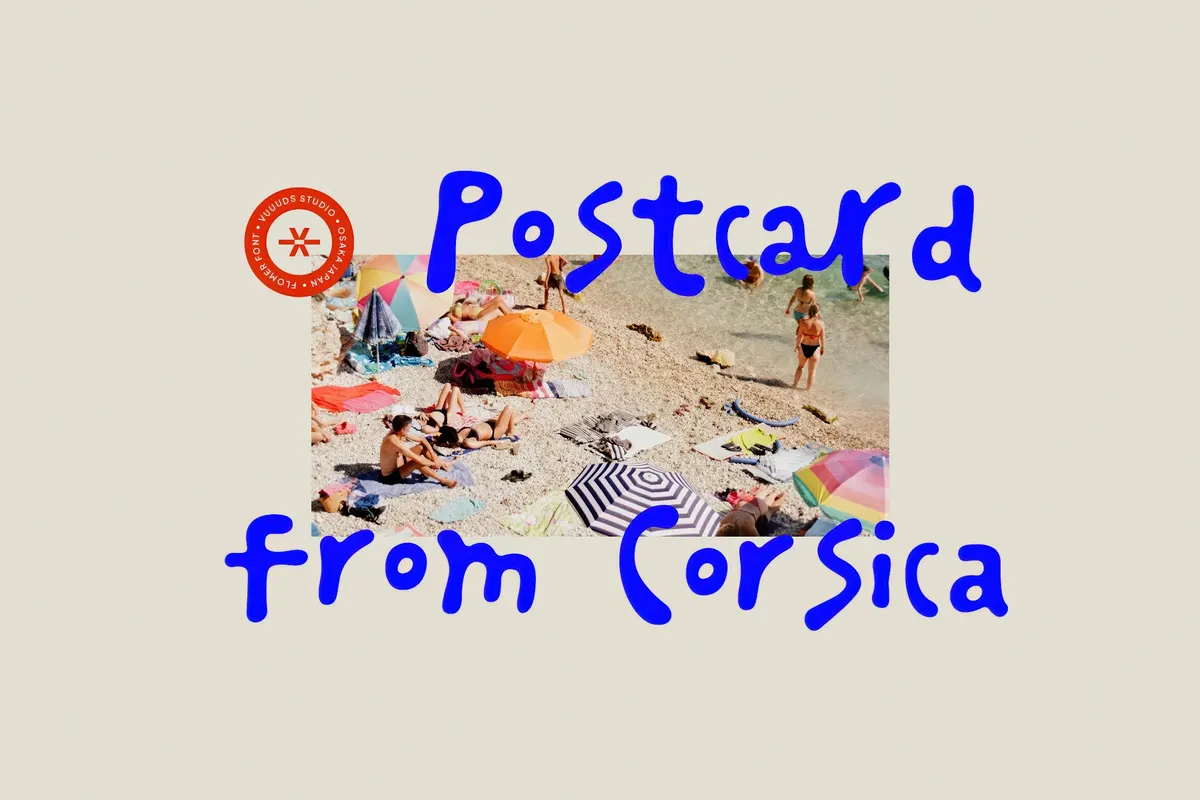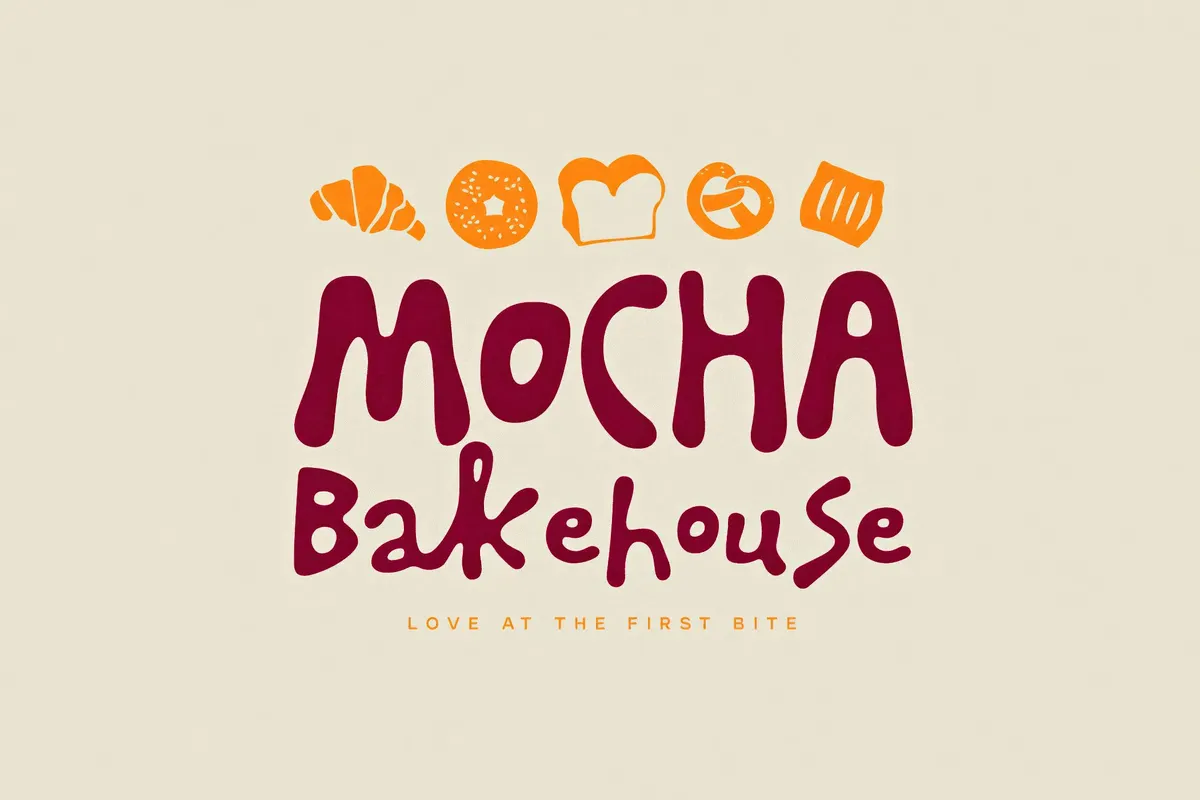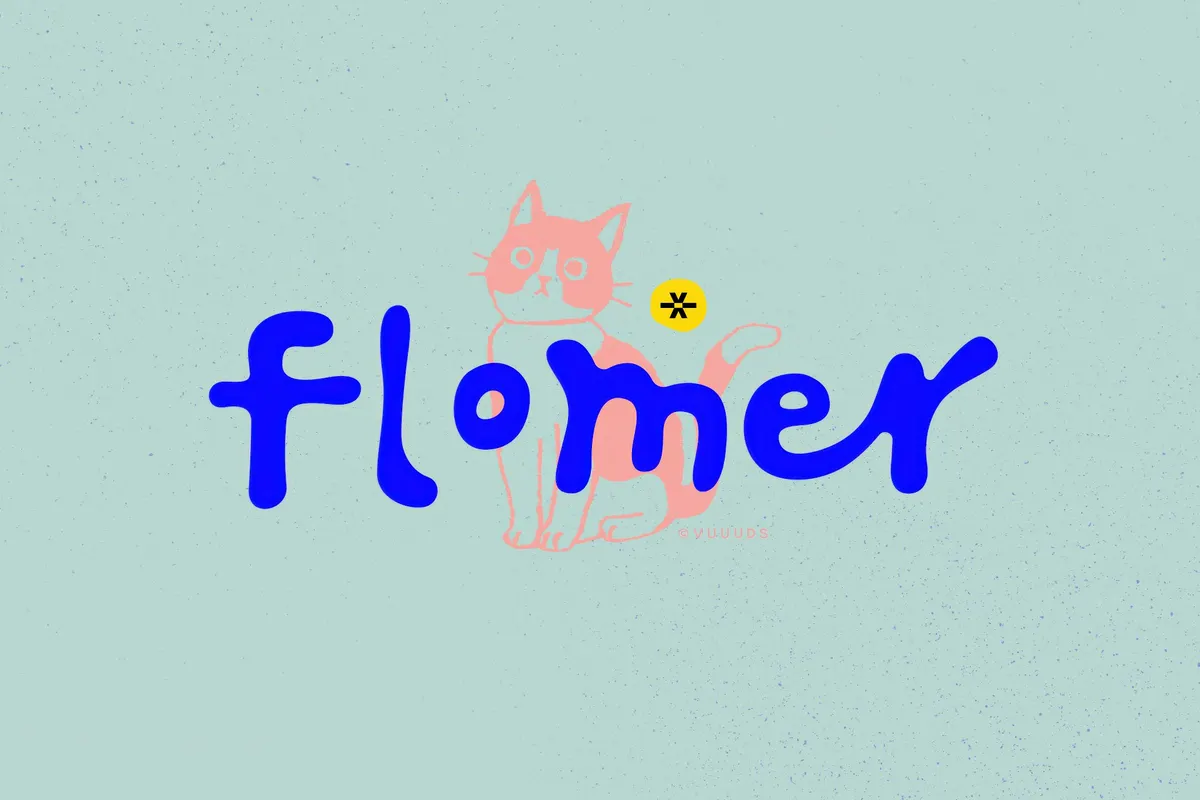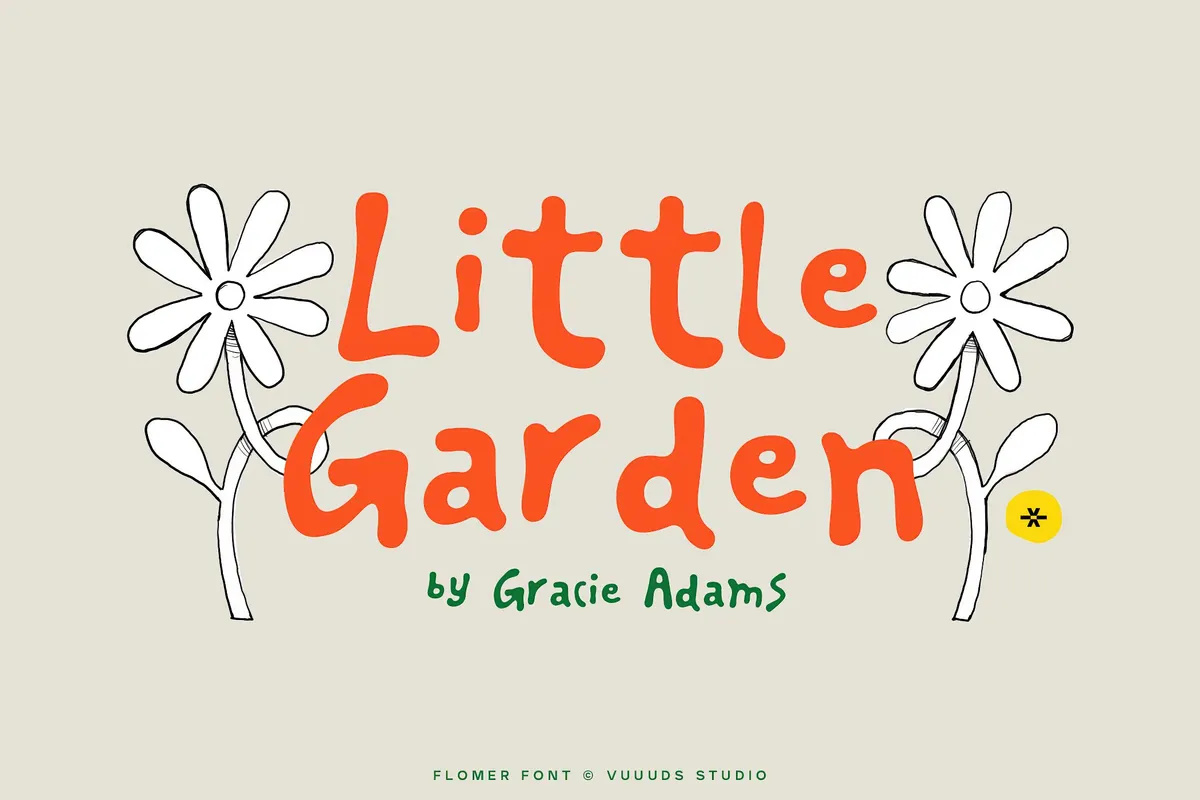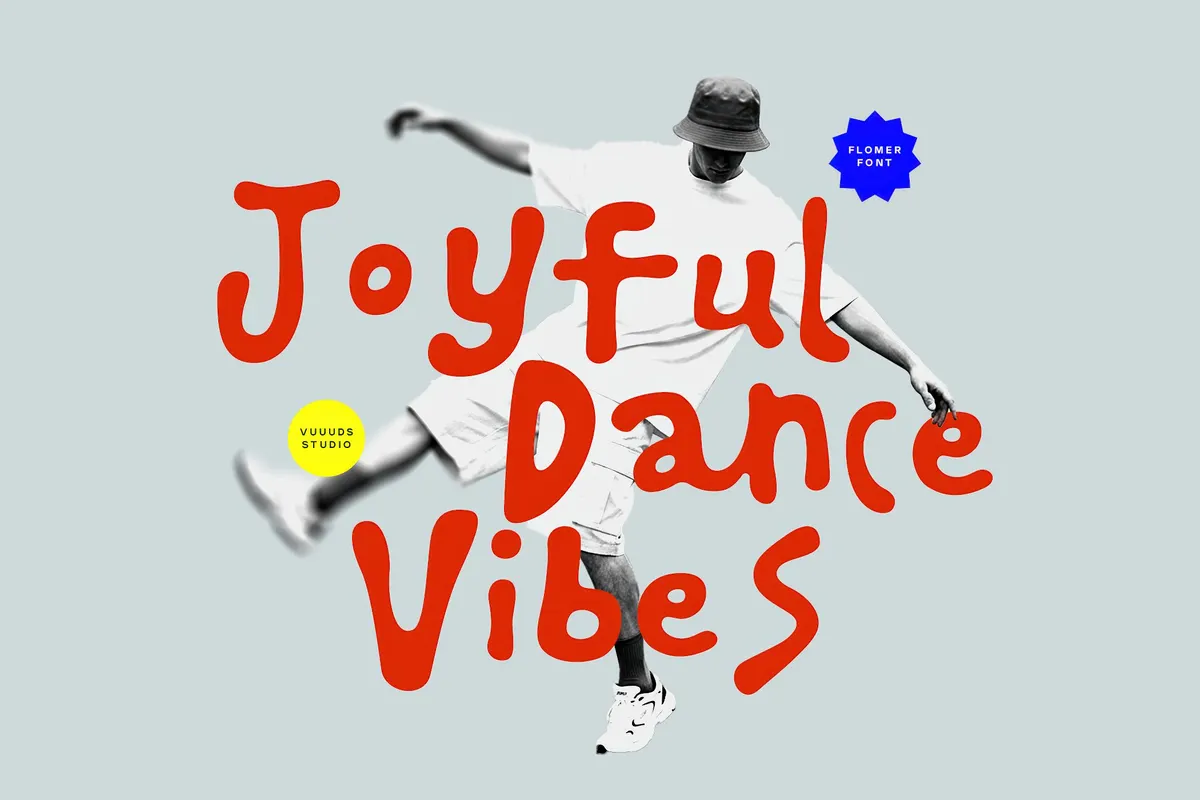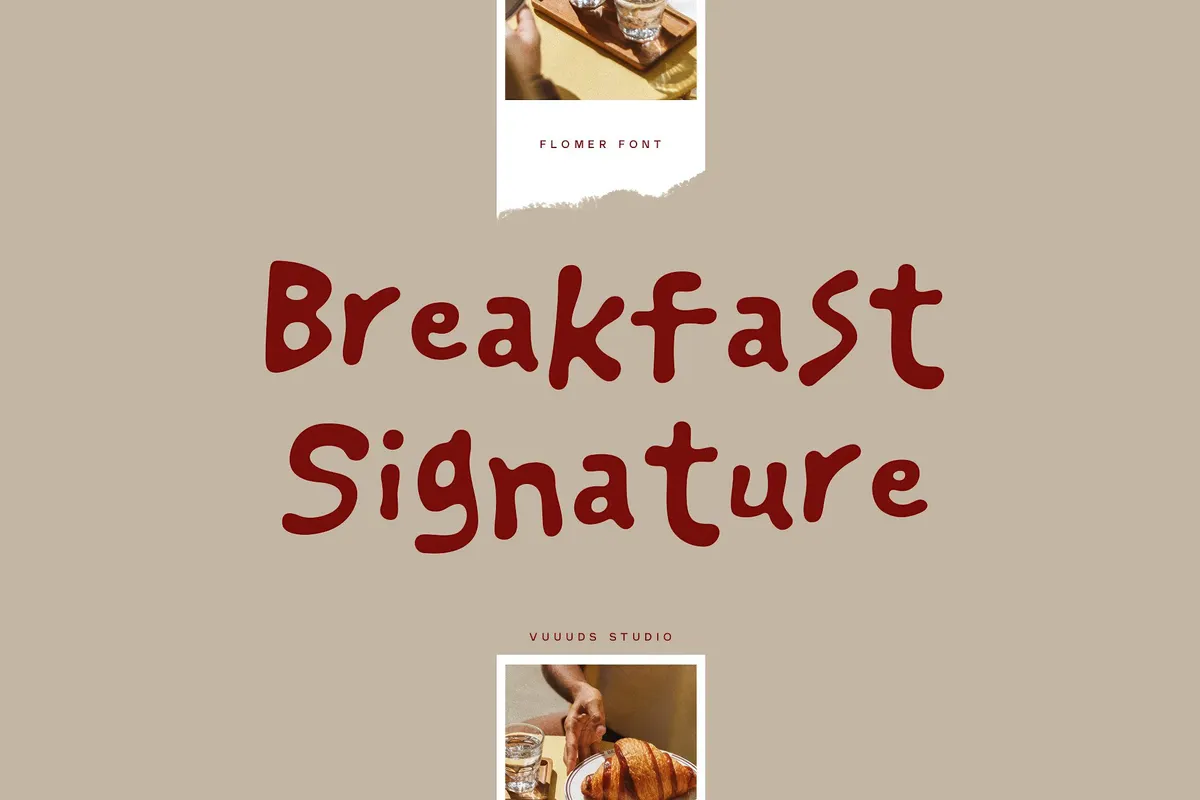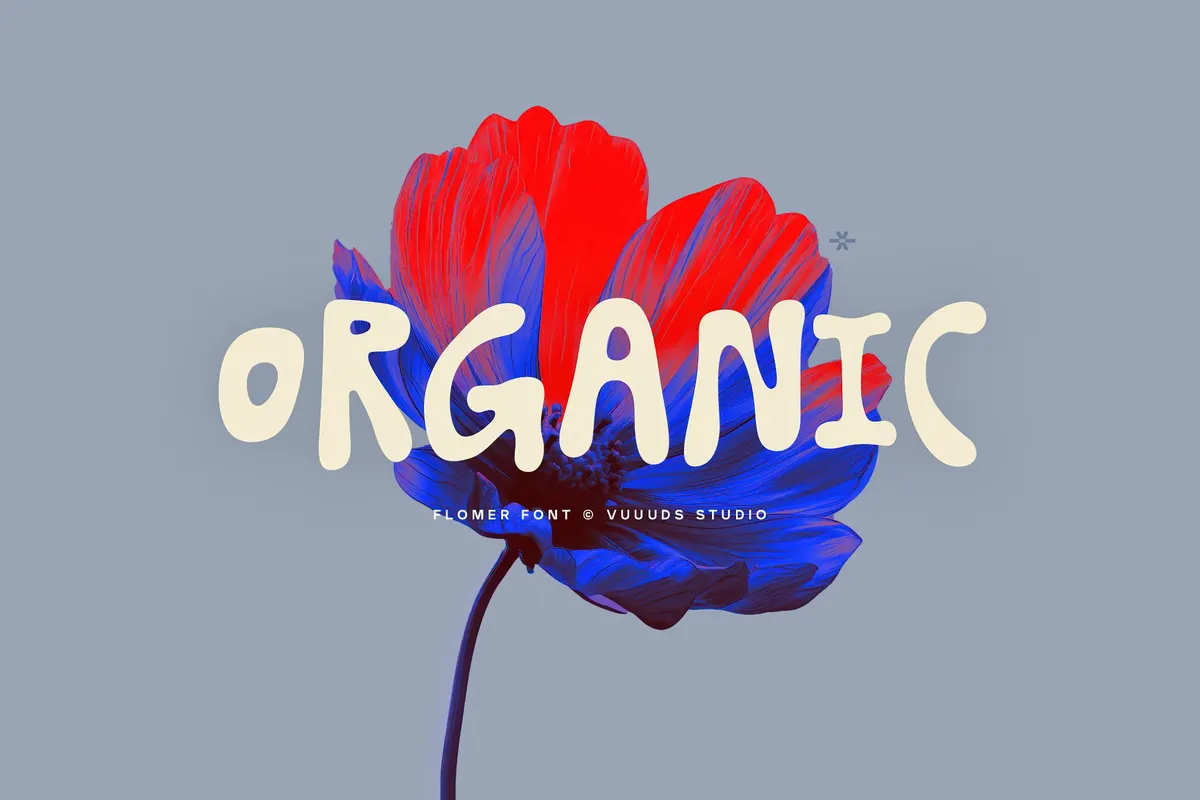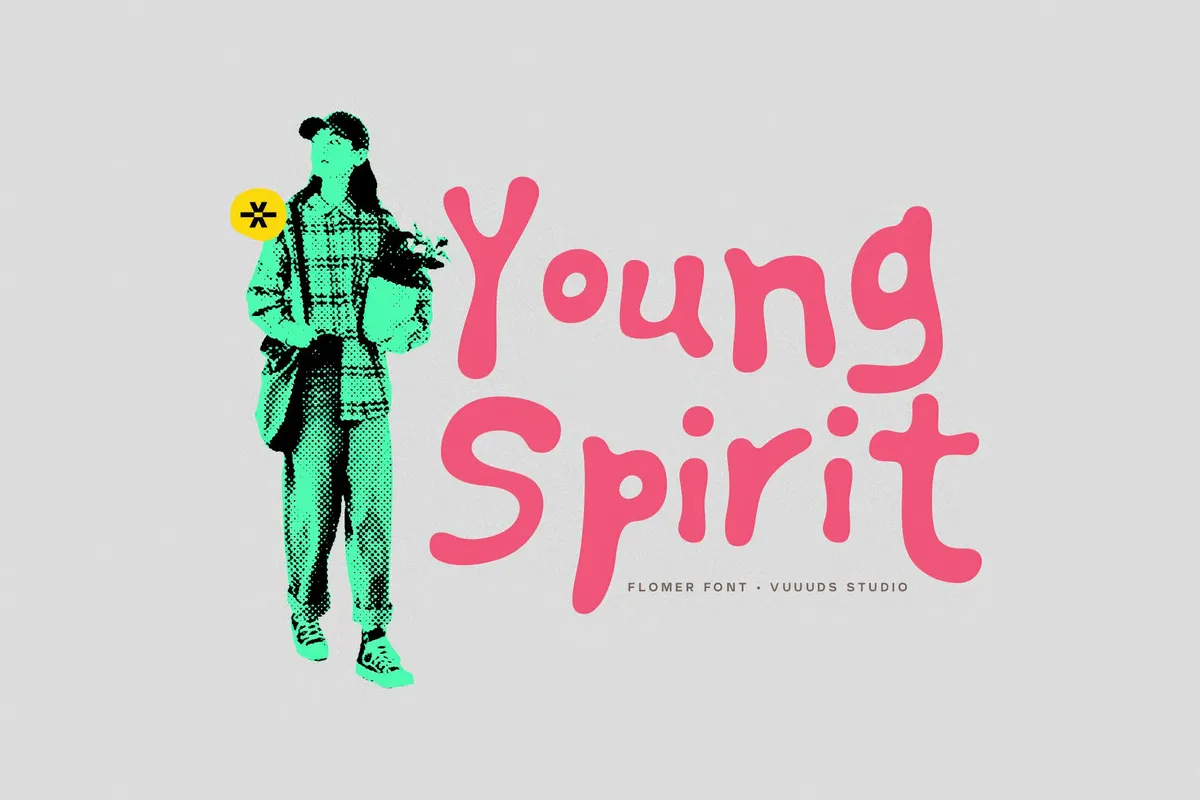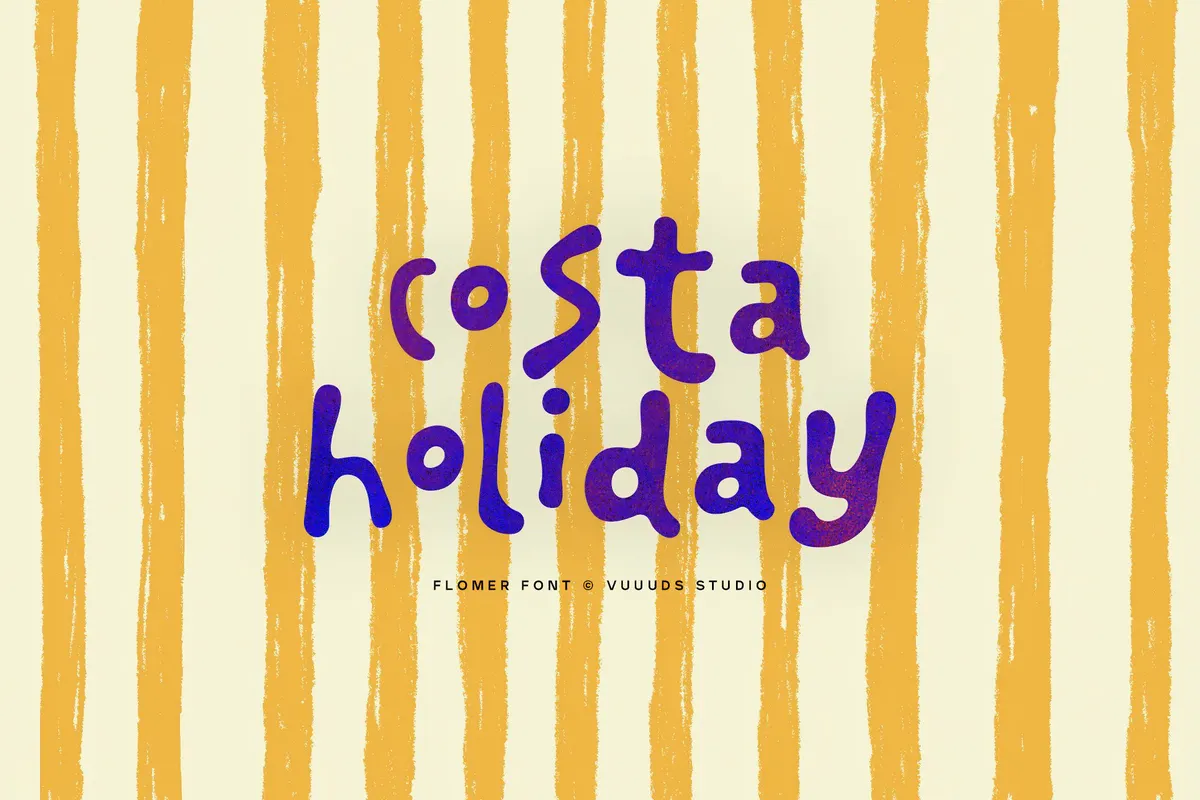
Flomer - Bouncy Display Font
Flomer
Flomer draws strong influence from felt-tip doodles, sketchbook lettering, and the loose bounce of letters drawn straight onto paper. The bowls swell and pinch by hand, the terminals round off into soft blobs, and no two letters sit quite level, so a word holds the charm of marker ink laid down in one pass.
This playful hand-drawn display font features chunky, rounded strokes and an uneven, wobbling baseline. It pairs a childlike, joyful register with real weight on the page, anchoring a logo or poster title and holding that character across uppercase and lowercase. A set of hand-drawn doodle extras (flowers, small creatures, and food icons) comes alongside the letters, ready to drop next to a headline.
- Branding and logos — kids' brands, cafés, ice-cream shops, craft studios, flower stalls.
- Packaging design — snack wraps, candy labels, juice cartons, toy boxes, sticker packs.
- Poster and flyer design — street markets, block parties, workshops, music nights, pop-ups.
- Social content — announcement posts, quote cards, story templates, sale graphics.
- Merchandise — totes, mugs, enamel pins, t-shirts, notebooks, art prints.
- 22 hand-drawn doodle glyphs — flowers, small creatures, food icons, and marks;